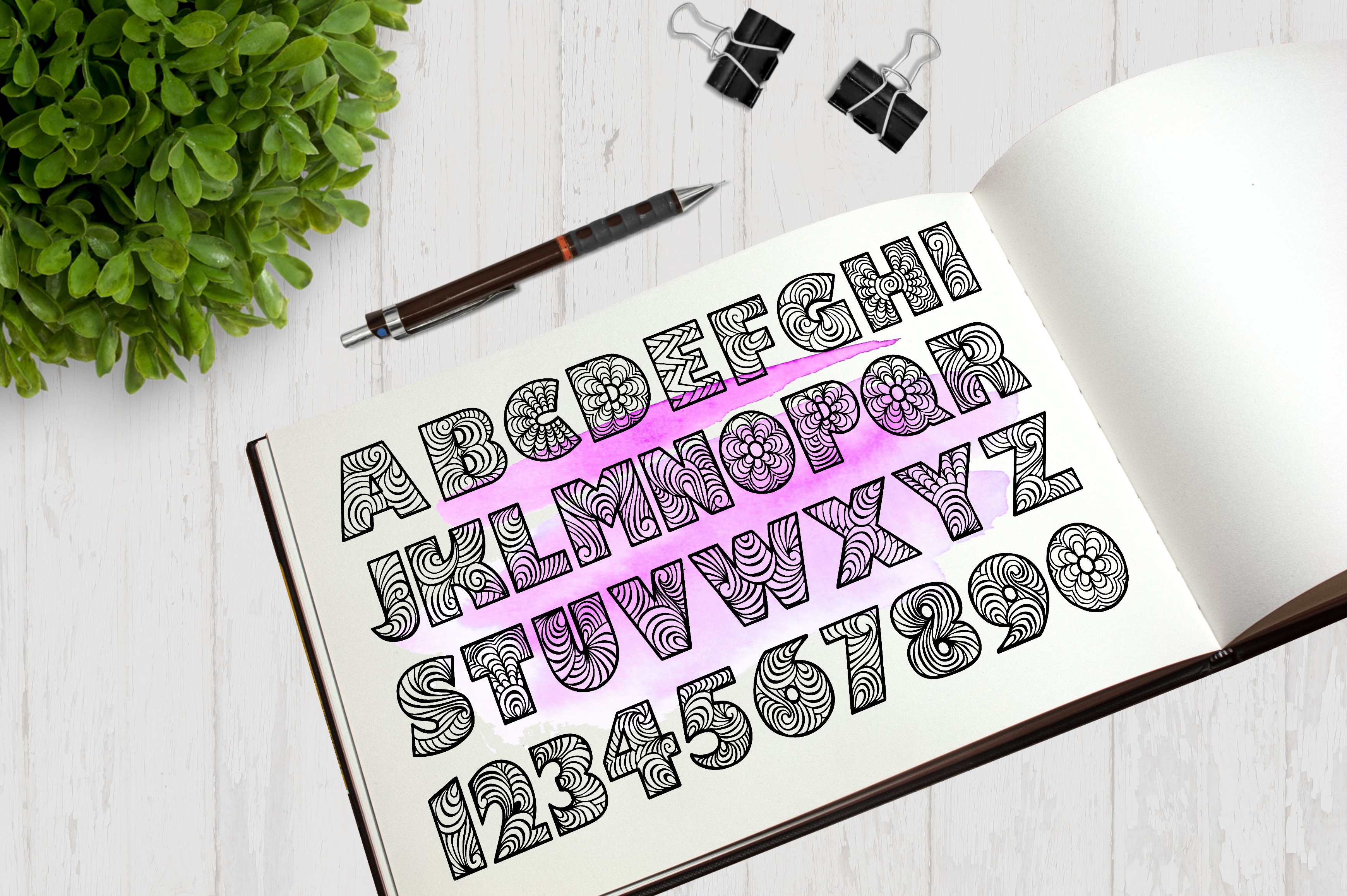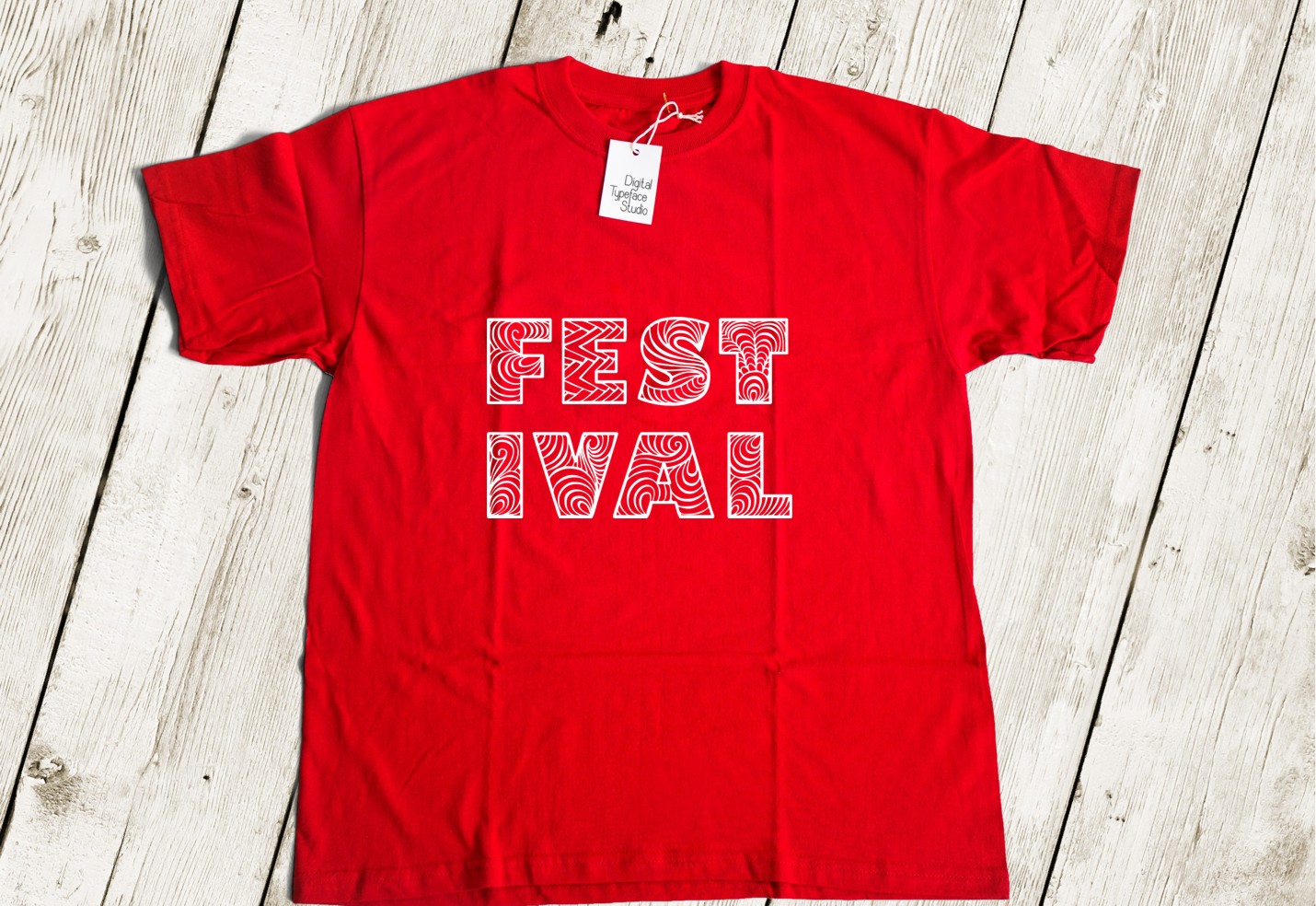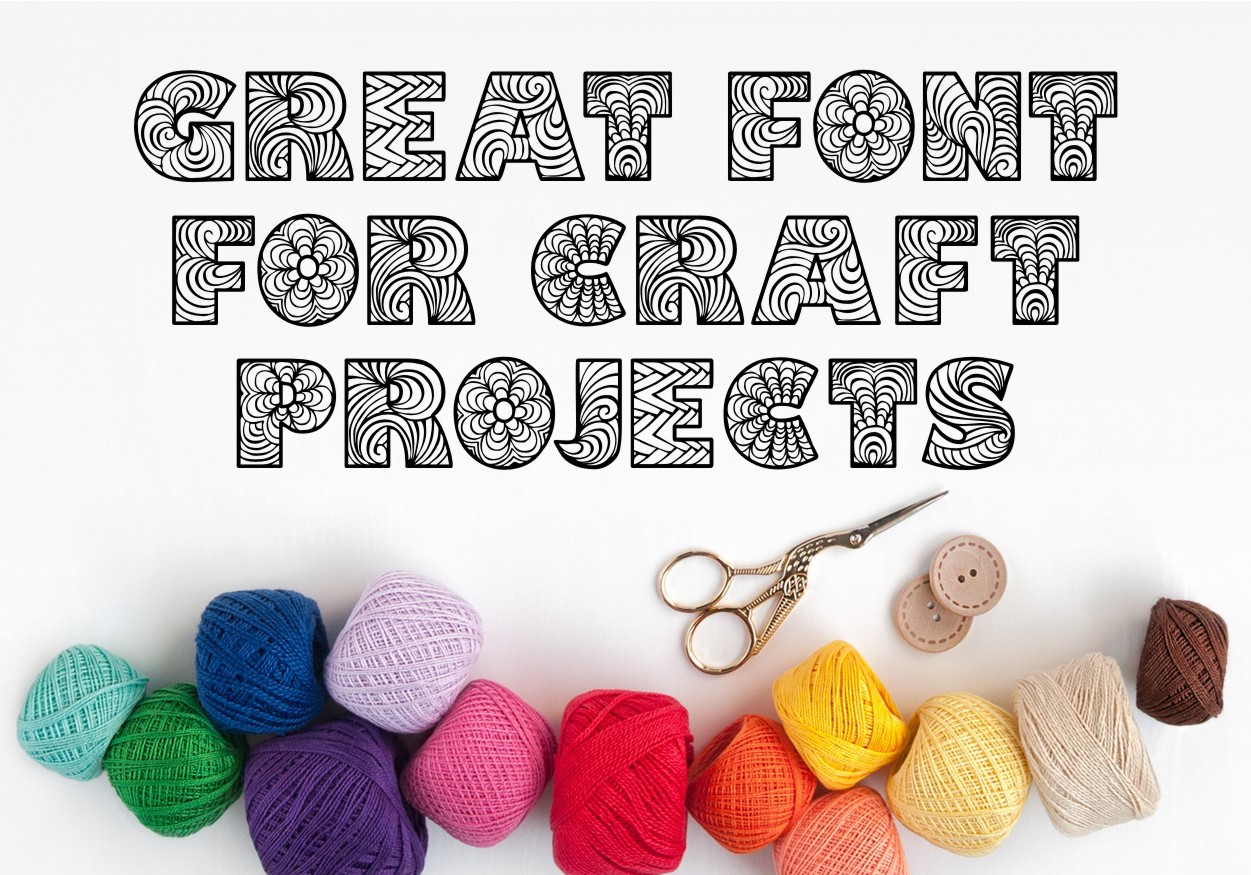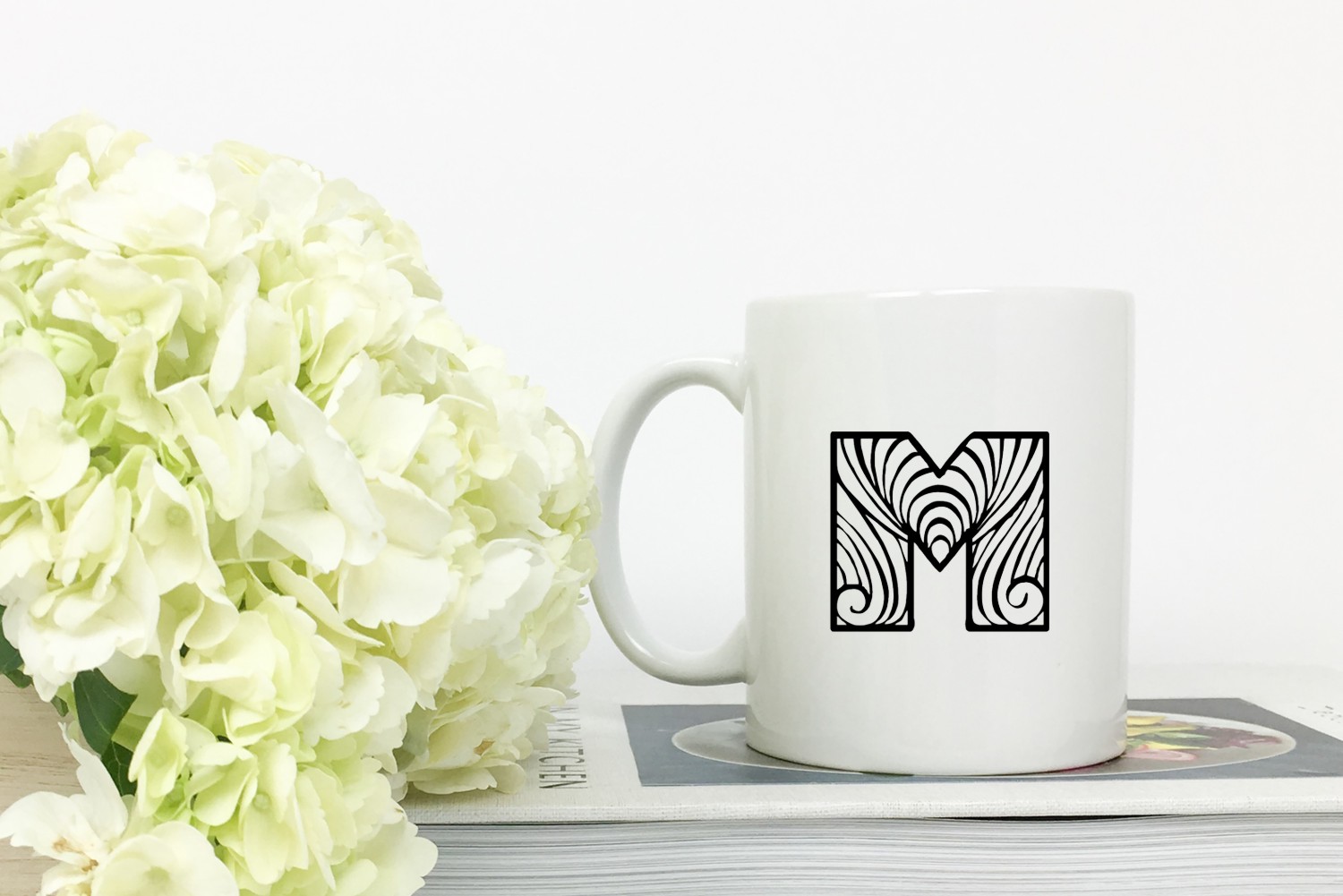
I’ll never forget the moment I stumbled upon the Fonix font while working on a custom wedding invitation project. My client wanted something elegant, yet playful, and I was determined to deliver. As I scrolled through font after font, nothing seemed quite right – until I saw Fonix. Its unique blend of fancy, decorated letters immediately caught my eye, and I knew I had found the perfect fit.
An Honest Review of Fonix Font
What I Love About Fonix ✨
- ✅ Unique and decorative lettering style that’s perfect for crafters and designers looking for something fresh.
- ✅ Highly versatile and can be used for a variety of projects, from wedding invitations to branding materials.
- ✅ Easy to read and understand, despite its decorative nature.
- ⚠️ Some users may find the font a bit too ornate for certain projects, such as body text or long-form content.
The Story Behind Fonix Font
The Fonix font was created with crafters and designers in mind – individuals who crave fresh, unique typography to elevate their projects. While the exact story behind the font’s creation is unclear, it’s evident that the designer aimed to craft a font that’s both elegant and playful, perfect for a wide range of creative applications.
| What type of projects is Fonix font best suited for? | Fonix font is ideal for projects that require a touch of elegance and whimsy, such as wedding invitations, branding materials, and social media graphics. |
| Is Fonix font suitable for body text or long-form content? | While Fonix font is beautiful and decorative, it may not be the best choice for body text or long-form content due to its ornate nature. |